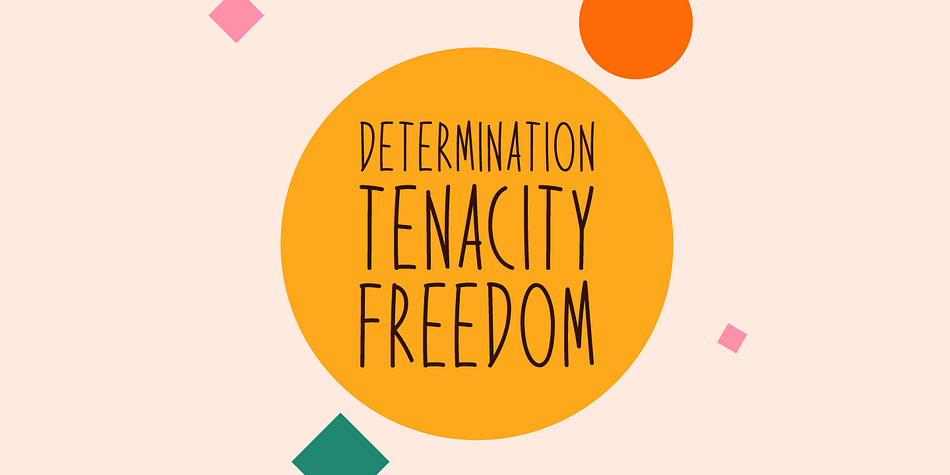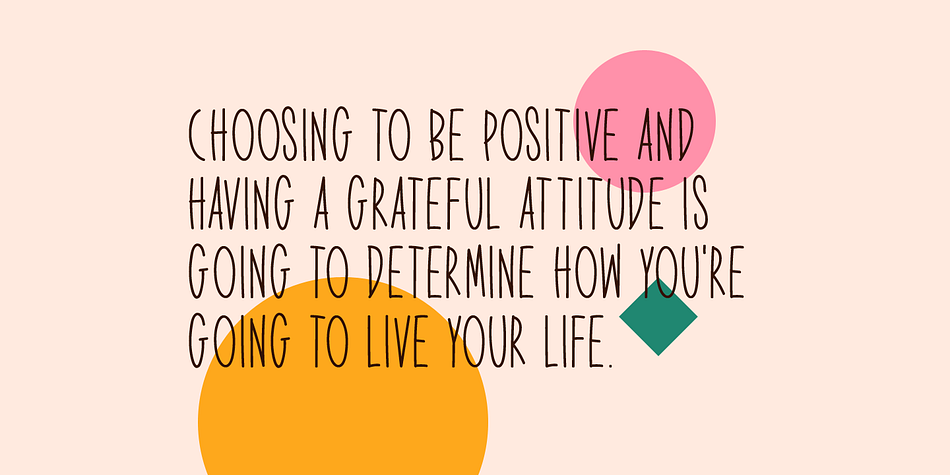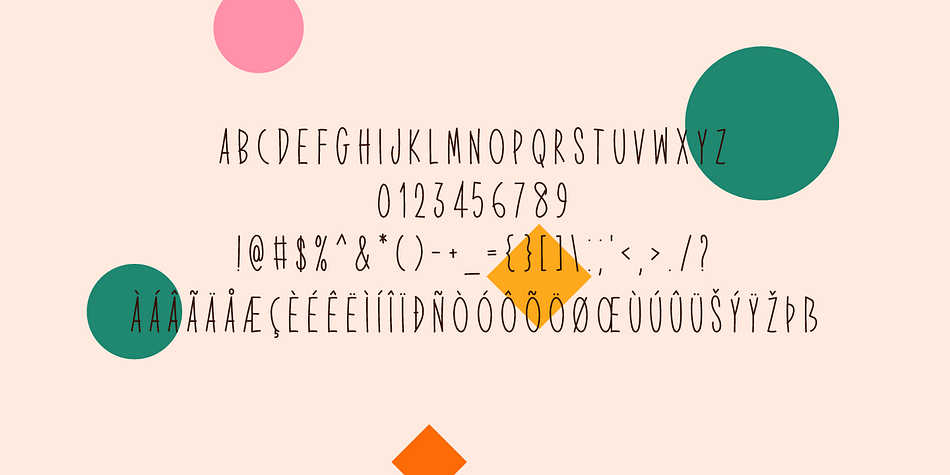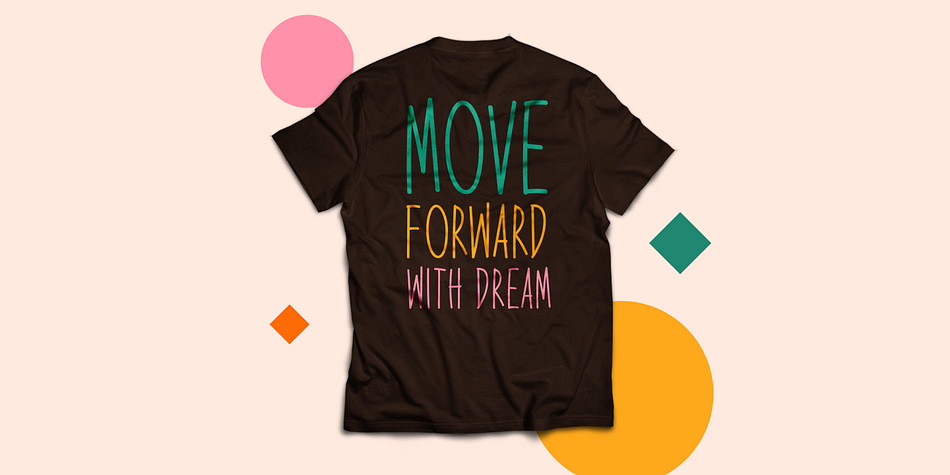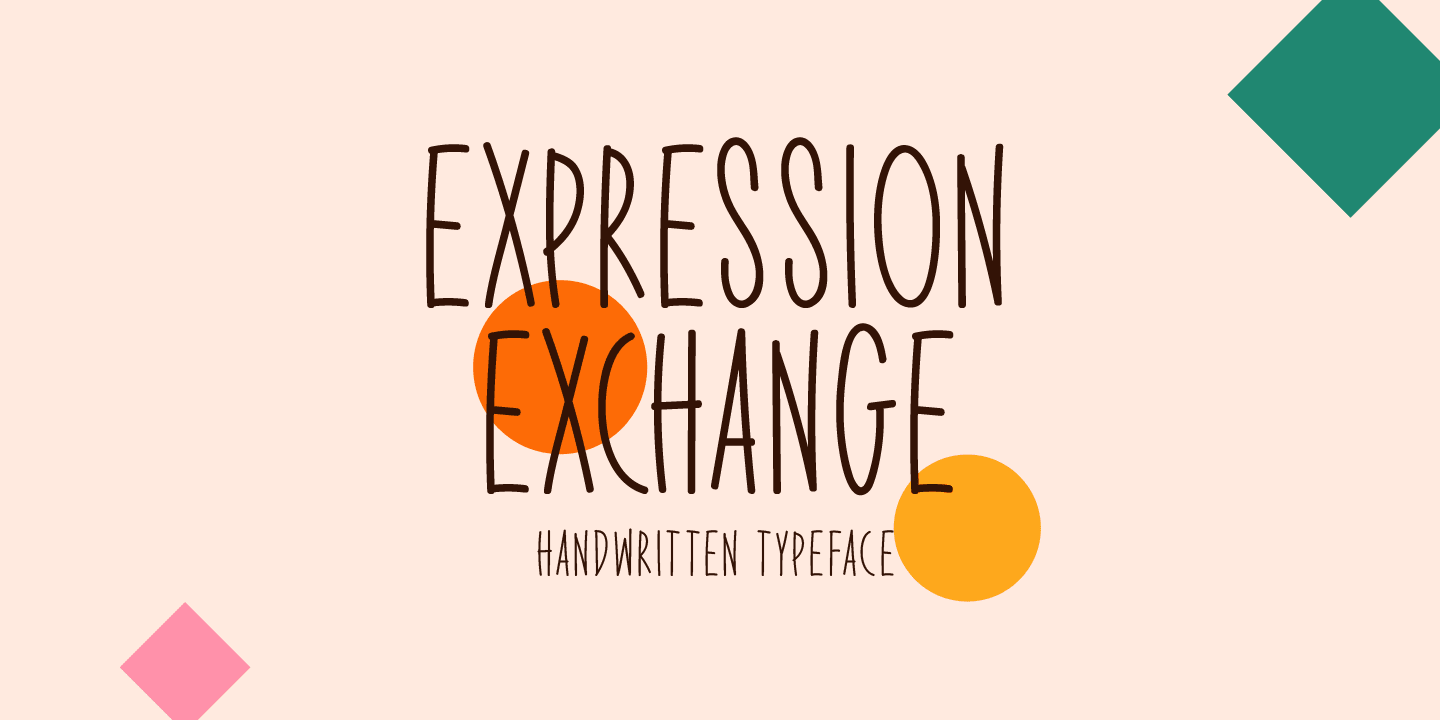
Designed by Md. Shohail Bhuiyan, Expression Exchange is a hand display and hand drawn font family published by Seemly Fonts.
Expression Exchange is a brand new handwritten font. Expression Exchange is perfectly suited for stationery, logos, t-shirt, paper, print design, website headers, photo frames, flyers, music covers, posters, image sliders, and much more.